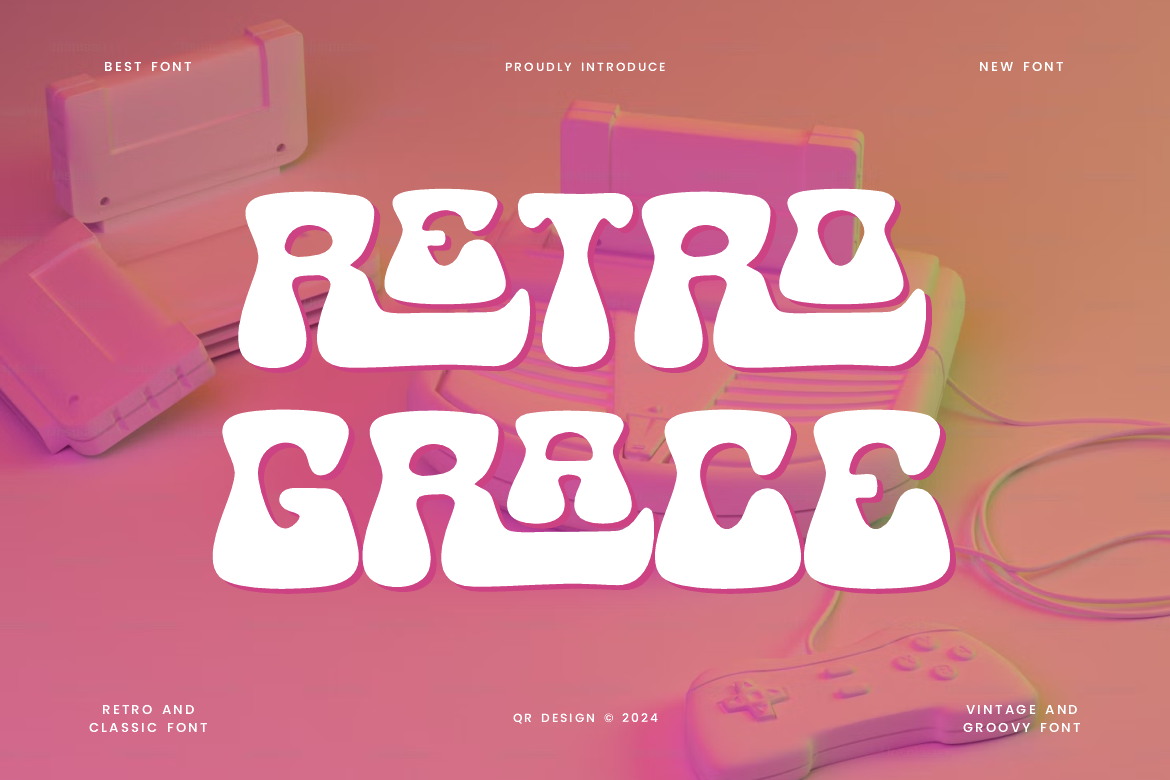
Retro Grace - Bubbly & Groovy Font
Retro Grace Font is a groovy and authentic display font. The font is suitable for any branding project like poster, logo, sport, and many more. Outstanding in a wide range of contexts.